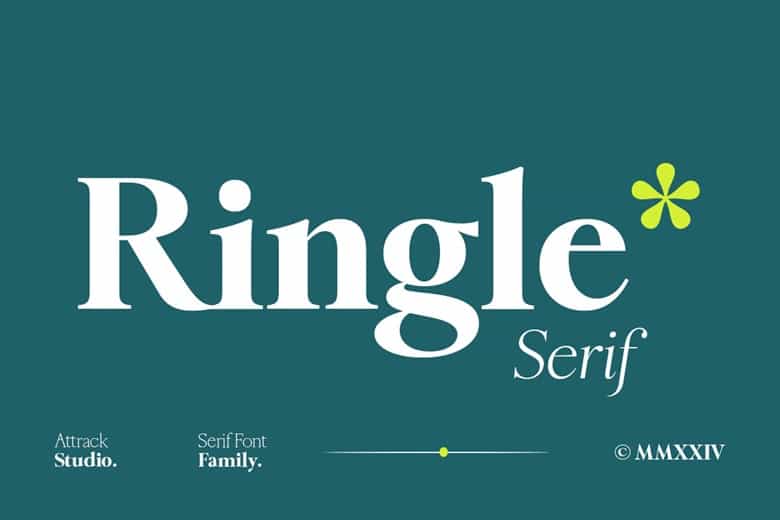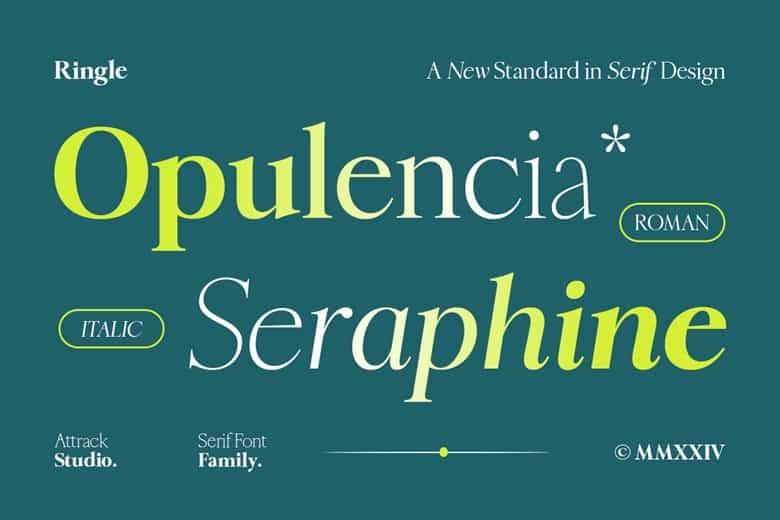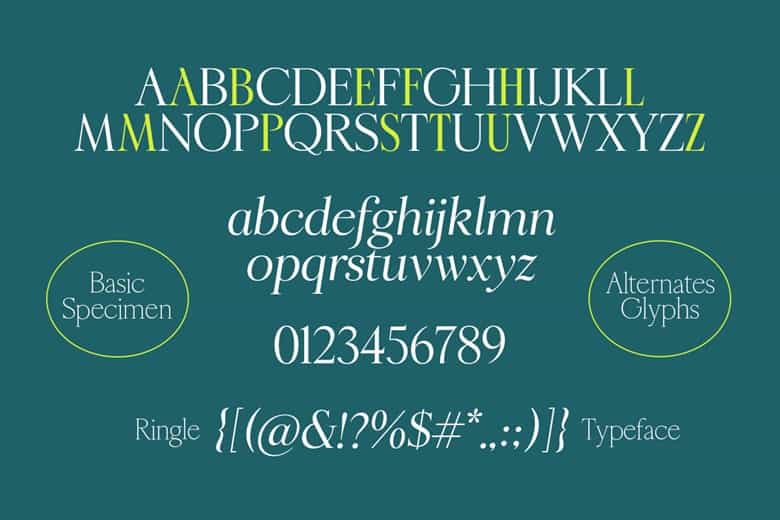
Ringle is a modern elegant and genuinely serif font which has elements of traditional typography. In a beautiful contrast and with very pointed italics, Ringle has 18 letter styles which make it ideal for any luxury or typography based branding project.